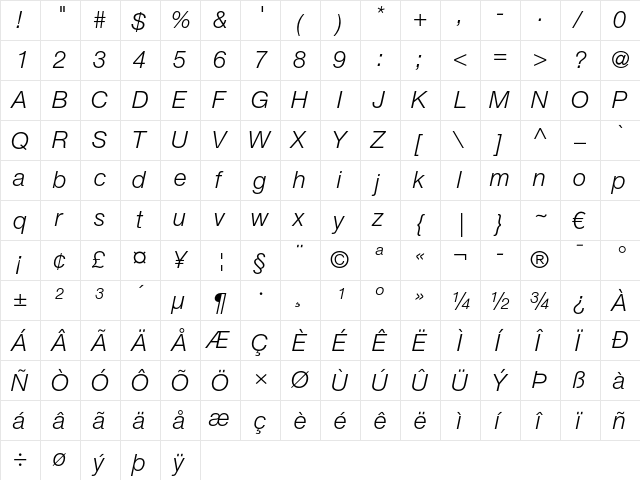
Helvetica Neue LT Pro 46 Light Italic
| Foundry | Linotype Library GmbH |
| Designer | Linotype Library GmbH |
Design Context for Helvetica Neue LT Pro Typeface
Helvetica Neue LT Pro is a composed and adaptable typeface that performs quietly and consistently across a wide range of design contexts. The slanted form adds forward momentum and visual energy. Its slender proportions lend an understated elegance to any composition.
Pro Tip: Try Helvetica Neue LT Pro for annotation and caption copy alongside an upright companion — the contrast in angle creates a dynamic but ordered typographic system.